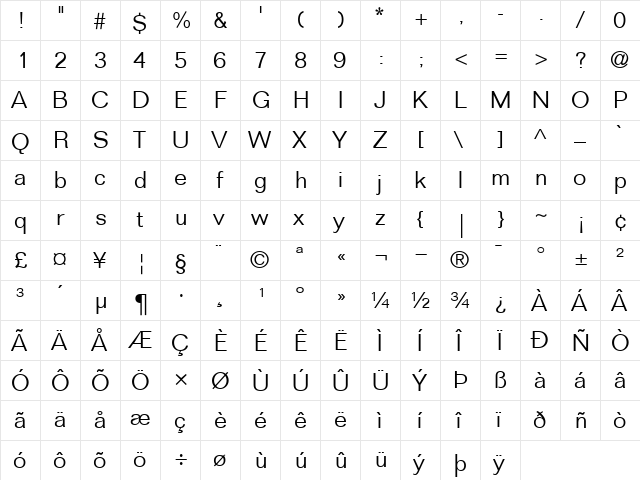
Folio-Light Light
Design Context for Folio-Light Typeface
Folio-Light offers clean, dependable letterforms without strong stylistic allegiance, making it a practical choice for designers who need flexibility. The delicate stroke weight brings airiness and refinement to layouts.